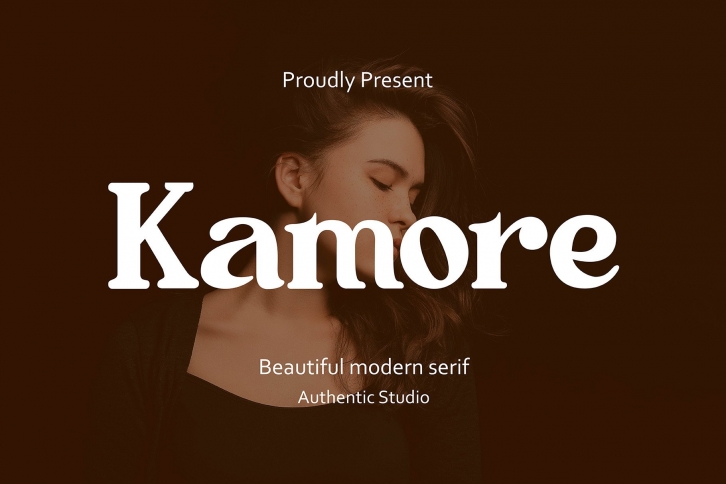
Kamore is a fancy modern-styled serif font. Perfect for editorial projects, Logo design, Clothing Branding, product packaging, magazine headers, or simply as a stylish text overlay to any background image.